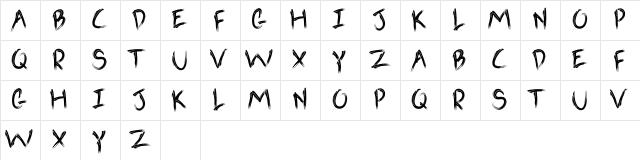
Goblins Regular Font Preview
Goblins Regular
Goblins Regular Font Details
Design Context for Goblins Typeface
Goblins is a composed and adaptable typeface that performs quietly and consistently across a wide range of design contexts.
Pro Tip: Use Goblins in both headline and body roles to test its range before committing to a single application.